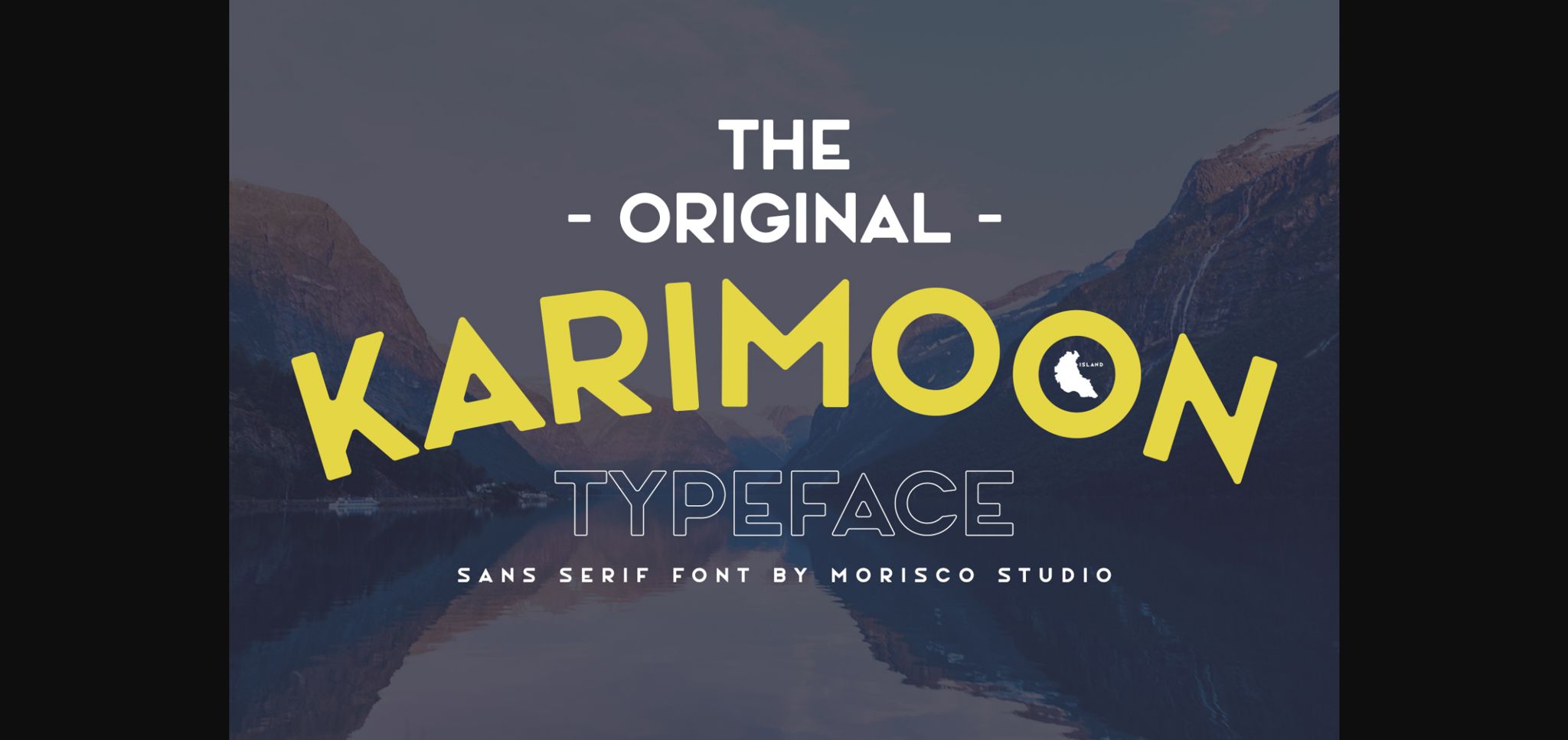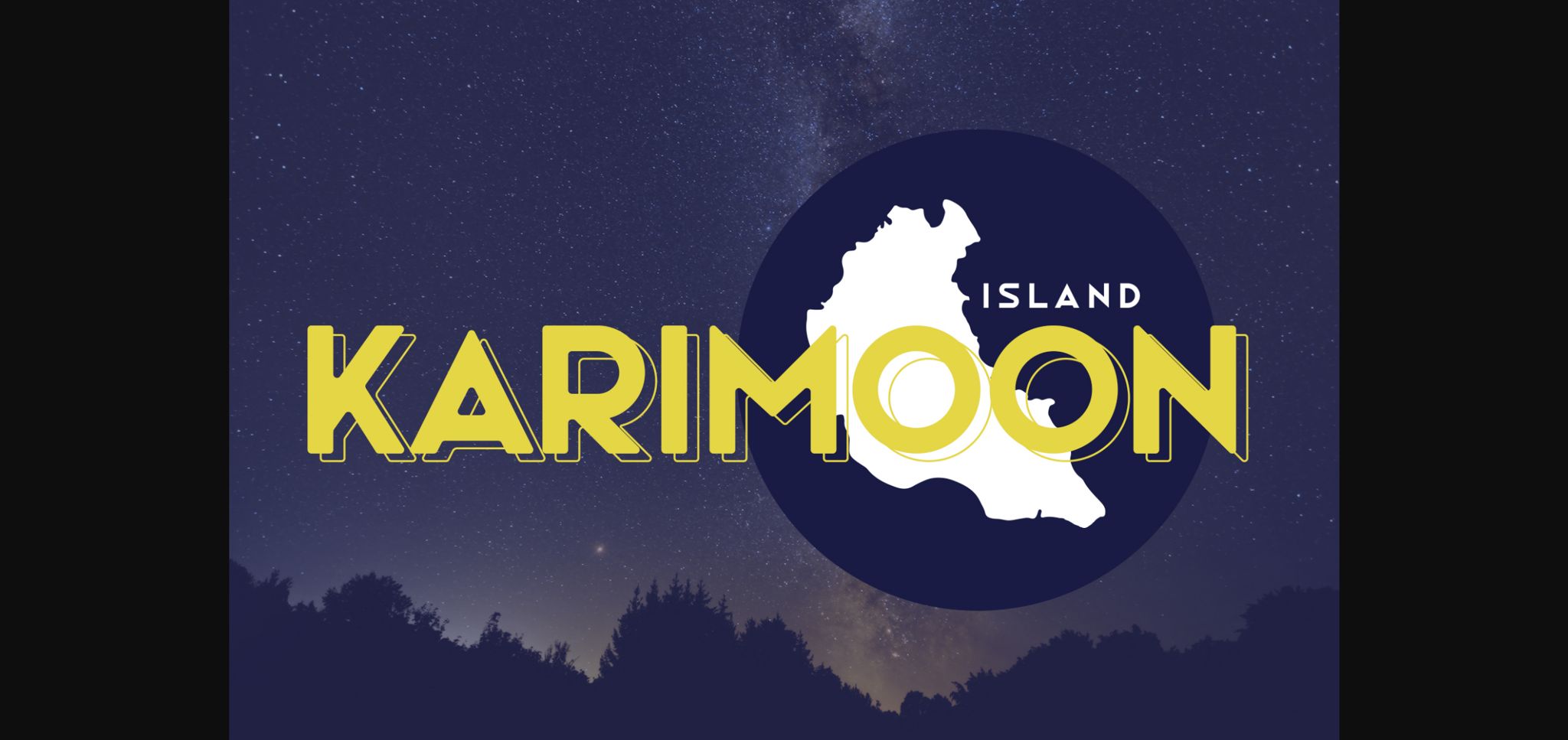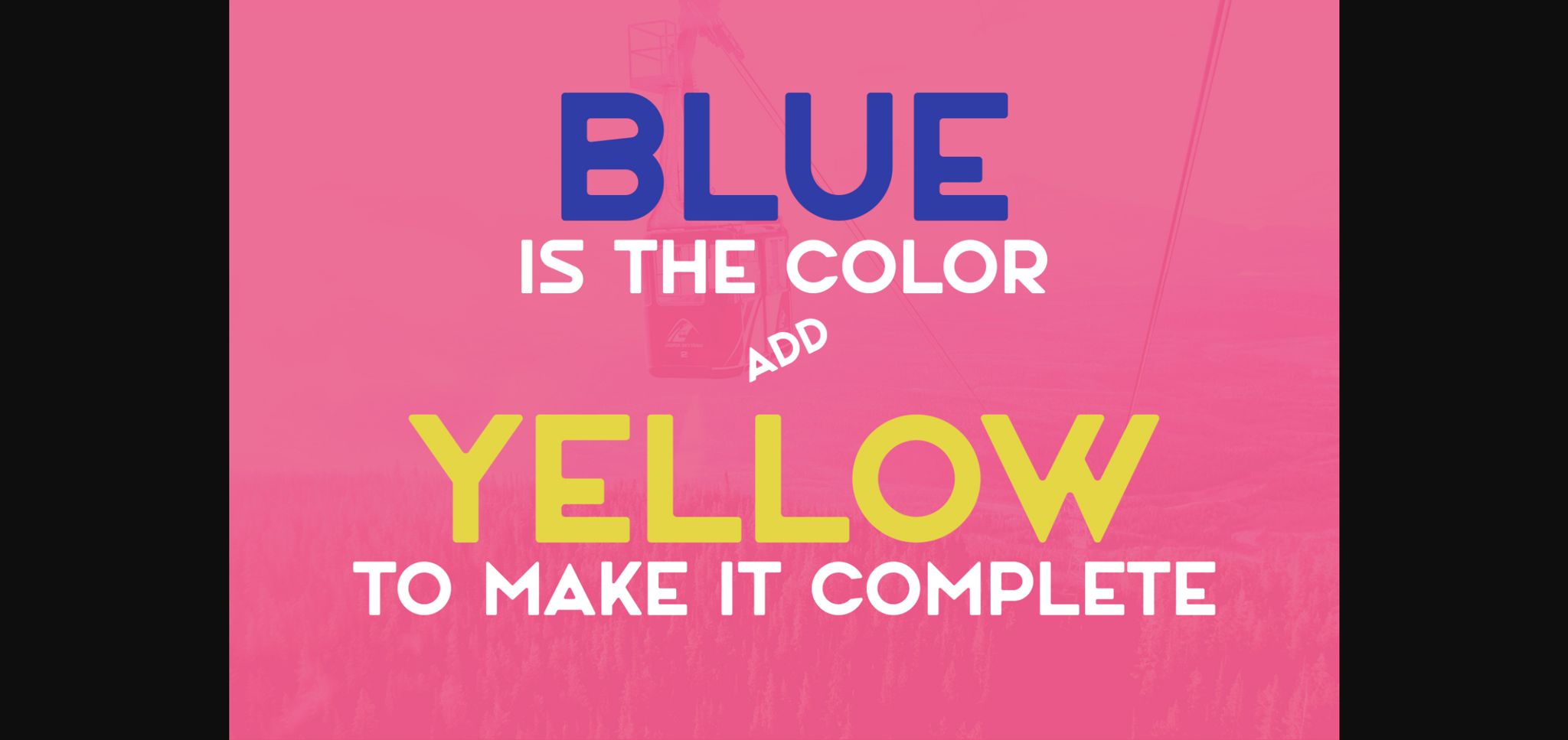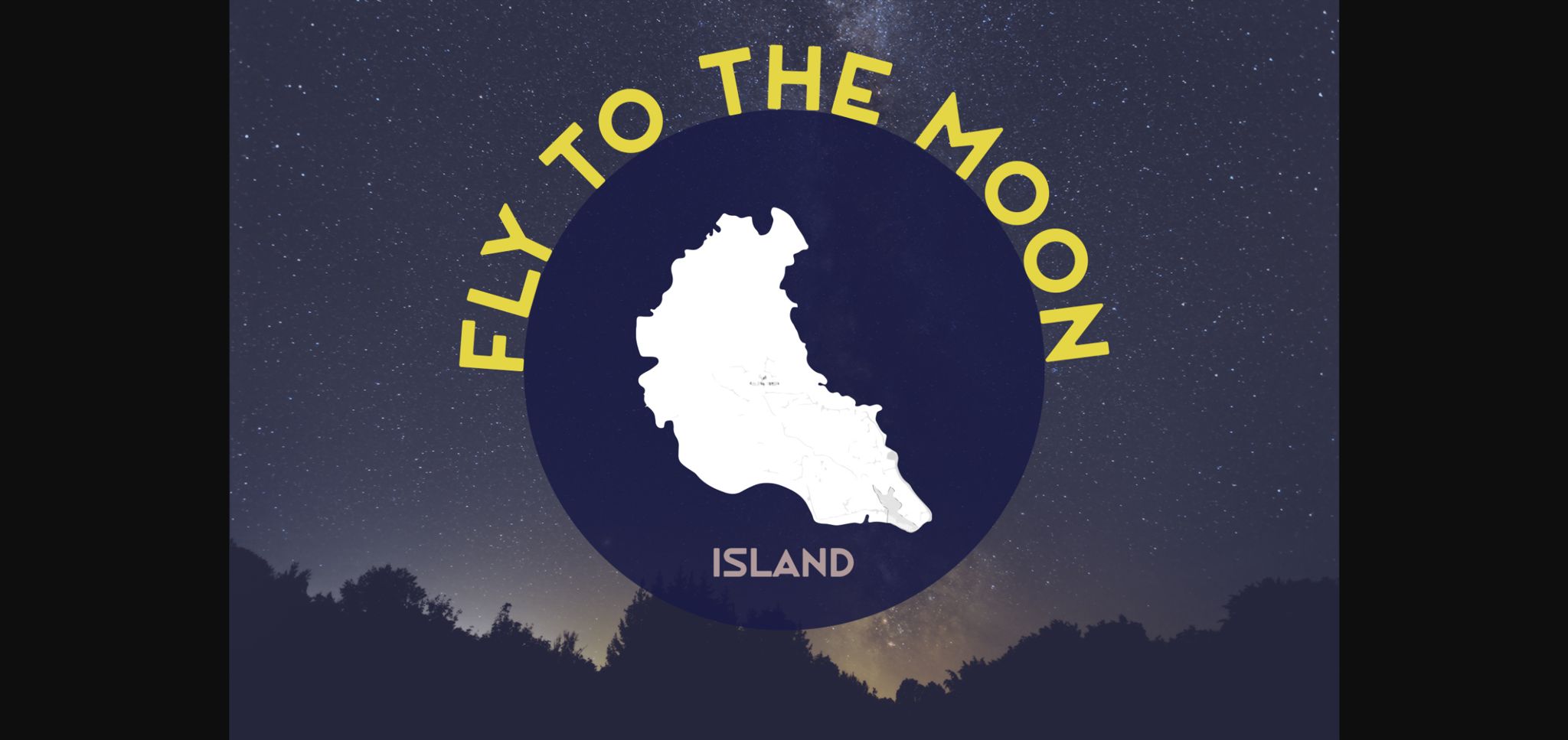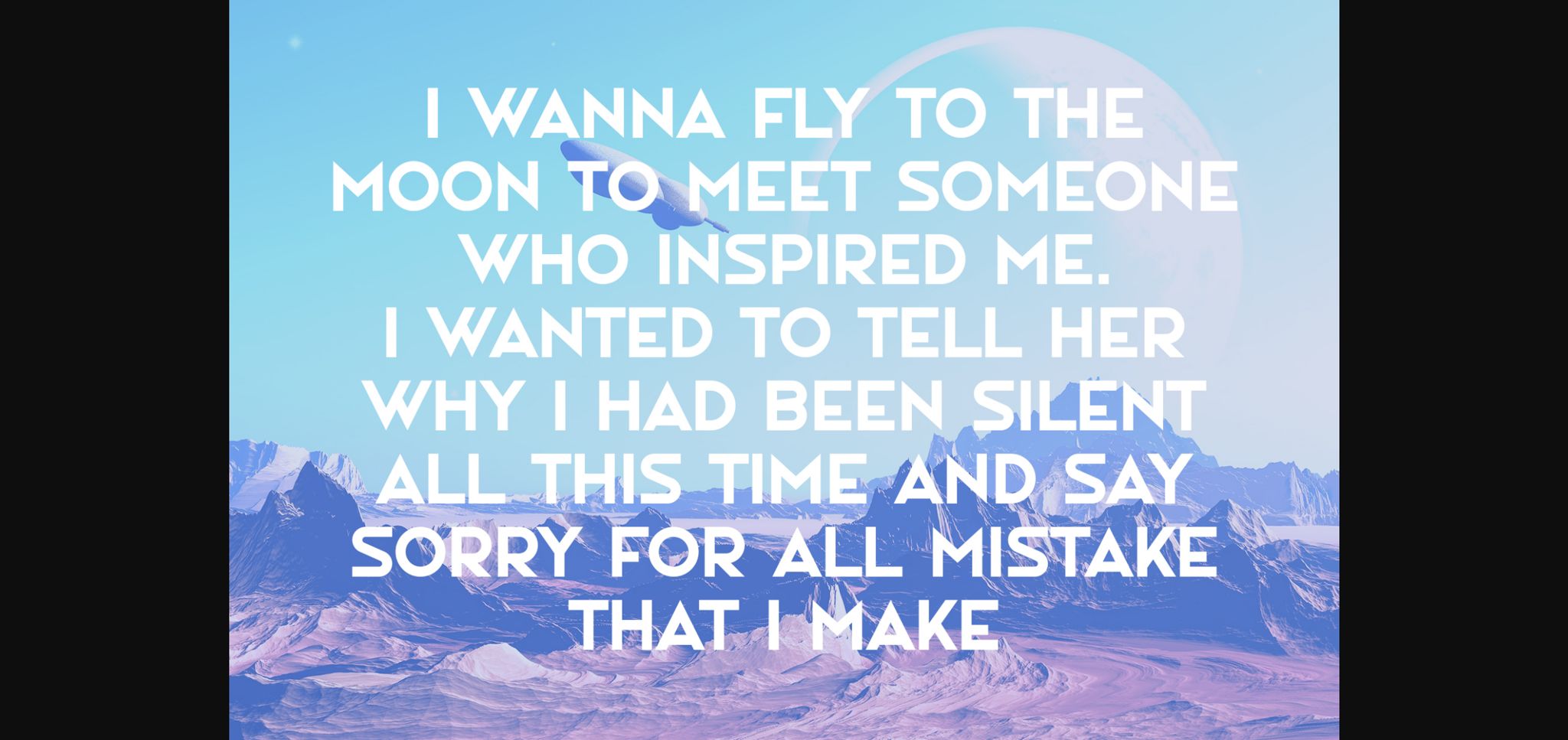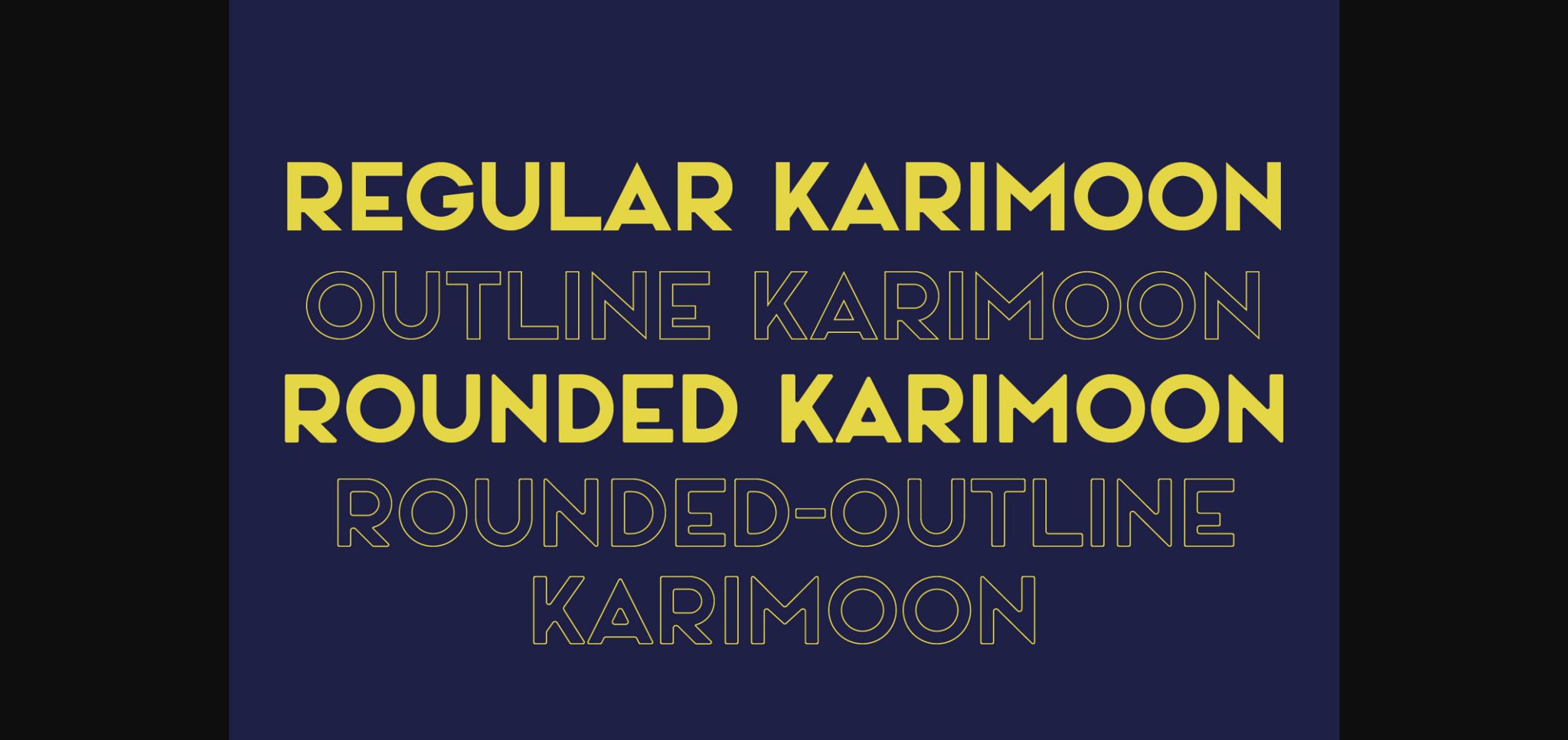
HomeSans Serif FontsKarimoon Font Sans Serif Fonts Karimoon Font FacebookXPinterestWhatsApp 1 of 10 ... Karimoon Font Poster 2... Karimoon Font Poster 3... Karimoon Font Poster 4... Karimoon Font Poster 5... Karimoon Font Poster 6... Karimoon Font Poster 7... Karimoon Font Poster 8... Karimoon Font Poster 9... Karimoon Font Poster 10... About Karimoon Font Karimoon is a modern styled sans serif font, perfect for a variety of purposes. Add this font to your favorite creative ideas and notice how it makes them come alive! DOWNLOAD NOW People also explored Butter Chicken Font Outline State Font Amelin Secret Font Vassandra Script Font Bestigna Font Terzo Sonagihen Font Comic Candy Font Shibuyah Font 297 0 TagsKarimoon Font Previous articleConquest Sans & Slab Serif FontNext articleThe Marlin Font LEAVE A REPLY Cancel reply Comment: Please enter your comment! Name:* Please enter your name here Email:* You have entered an incorrect email address! Please enter your email address here Website: Save my name, email, and website in this browser for the next time I comment. Personal Use Free Penelope Brush Script Font Personal Use Free Read more about this font Child Witch Personal Use Free Read more about this font Kaysan Personal Use Free Read more about this font Mellow Personal Use Free Read more about this font BLOG 5 Fonts That Will Dominate Design Trends in 2026 5 Fonts for 2026 That Will Dominate Design Trends Typography plays a critical role in visual communication, and as we look ahead to 2026, it’s... Top 7 Google Fonts Alternatives for Faster and Privacy-Friendly Web Design (2025) Top 10 Handwritten Fonts That Elevate Your Designs To increase your work productivity, choose the most readable fonts.